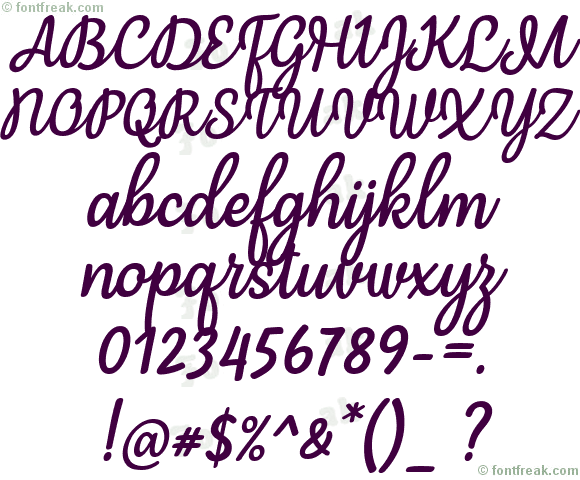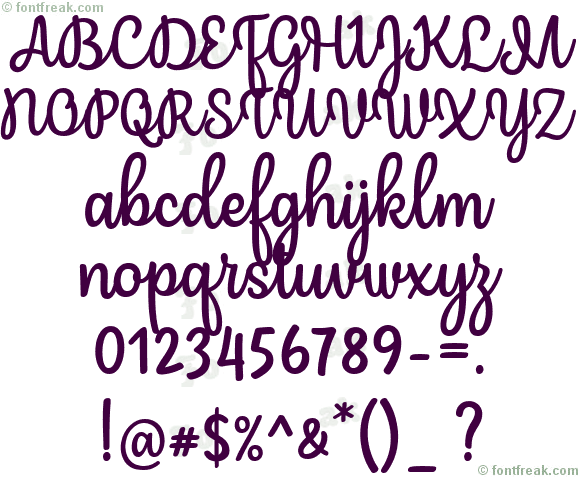
Mergic Italic
Mergic
Mergic Italic, designed by Situjuh Nazara, is a striking decorative font that beautifully embodies a blend of elegance and modernity. As an italic typeface, it features a playful yet sophisticated design that makes it suitable for a variety of creative projects. The font showcases a medium stroke weight with a balanced contrast, giving it a sense of lightness while maintaining readability. The generous spacing between characters enhances its legibility, making it an ideal choice for both digital and print applications.
This font is particularly well-suited for wedding invitations, where its flowing curves can evoke romance and charm. It also shines on movie posters, adding a touch of flair that captures attention and conveys a sense of creativity. Restaurant menus can benefit from Mergic Italic’s inviting appearance, making dishes seem more appealing while maintaining a touch of elegance. Additionally, it can enhance branding materials for small businesses, helping to establish a unique visual identity.
Targeting graphic designers, small business owners, and content creators, Mergic Italic offers a versatile option for enhancing visual communication. Its unique aesthetic can elevate any design project, allowing users to create standout pieces that resonate with their audience.
What truly sets Mergic Italic apart is its ability to combine artistic expression with functional design. Its distinct characteristics make it not only visually appealing but also practical, ensuring that it can be effectively used across various mediums. With a Mergic Italic font free download available, embracing this font for your next project has never been easier. Whether you’re aiming for a whimsical touch or a sophisticated flair, Mergic Italic is a font that promises to deliver on both fronts.